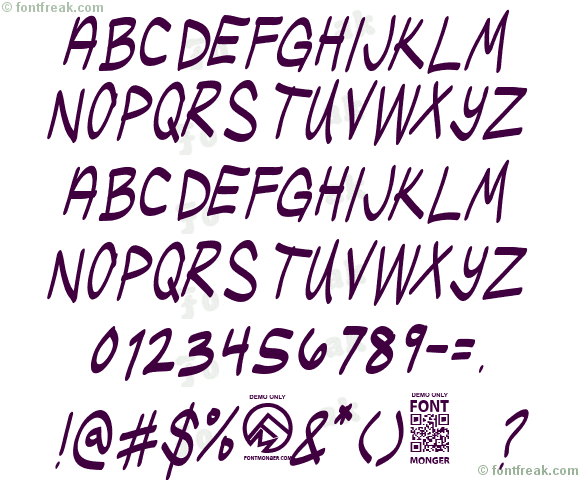
UglyKids-Regular
About UglyKids-Regular
UglyKids-Regular, designed by Chris Vile, is a unique display font that embodies a playful and quirky aesthetic. This font falls into the category of decorative typefaces, characterized by its bold, irregular strokes that exude a sense of whimsy and creativity. The visual characteristics of UglyKids-Regular include a thin stroke weight combined with a slightly italicized form, providing a dynamic and informal appearance. Its spacing is intentionally loose, allowing for a casual and approachable feel, making it ideal for projects that require a touch of personality.
With its distinctive style, UglyKids-Regular is particularly well suited for a variety of creative applications. It shines in settings such as children's book covers, where its playful nature can engage young readers. Additionally, it works wonderfully for event flyers, especially for parties or festivals targeting a younger audience. Its informal charm also makes it a great choice for social media graphics, helping content creators convey a fun and relatable message. Furthermore, this font can add character to merchandise designs, such as t-shirts or tote bags, where a unique typography can enhance brand identity.
The target audience for UglyKids-Regular includes graphic designers and small business owners who are looking for an eye-catching typeface that stands out in a crowded market. Content creators, particularly those aiming to reach a youthful demographic, will also find this font appealing due to its lively character.
What sets UglyKids-Regular apart is its ability to bring a sense of fun and creativity to any project. This font is not just about aesthetic appeal; it embodies a spirit of playfulness that invites engagement and connection. For those interested, the UglyKids-Regular font free download is available, ready to inspire your next design venture.